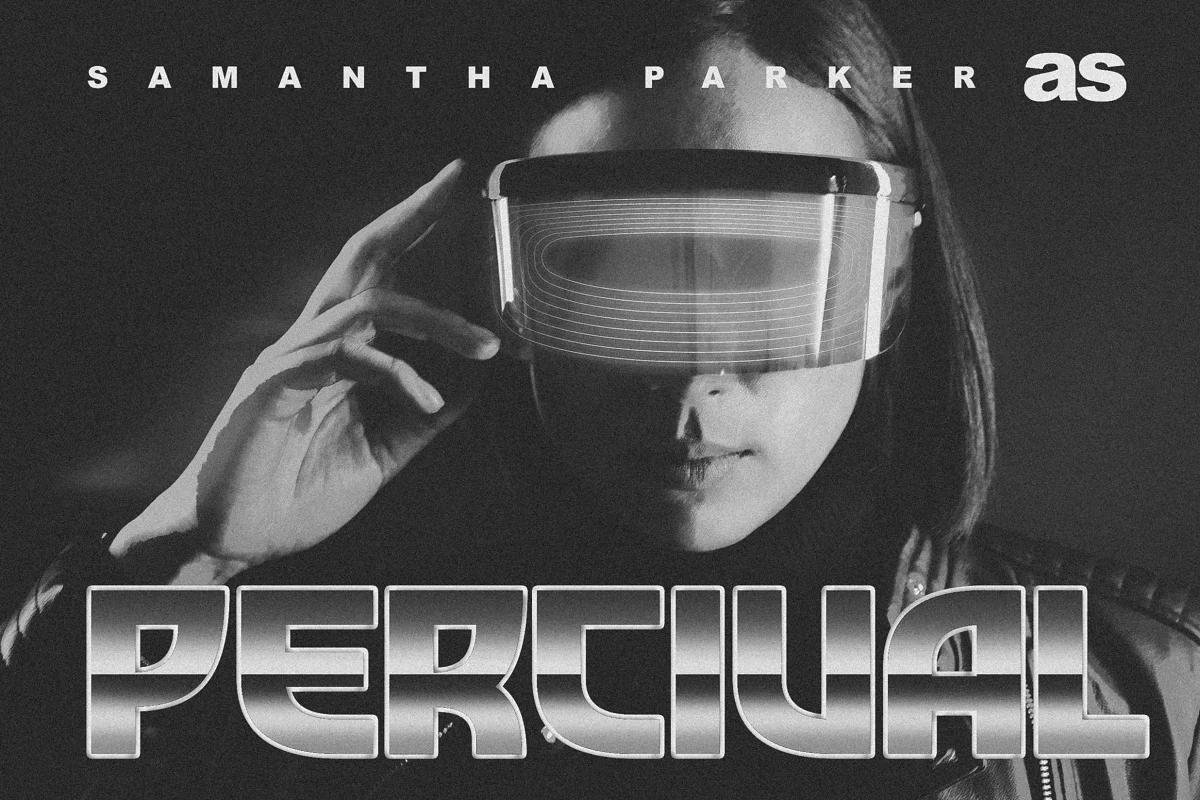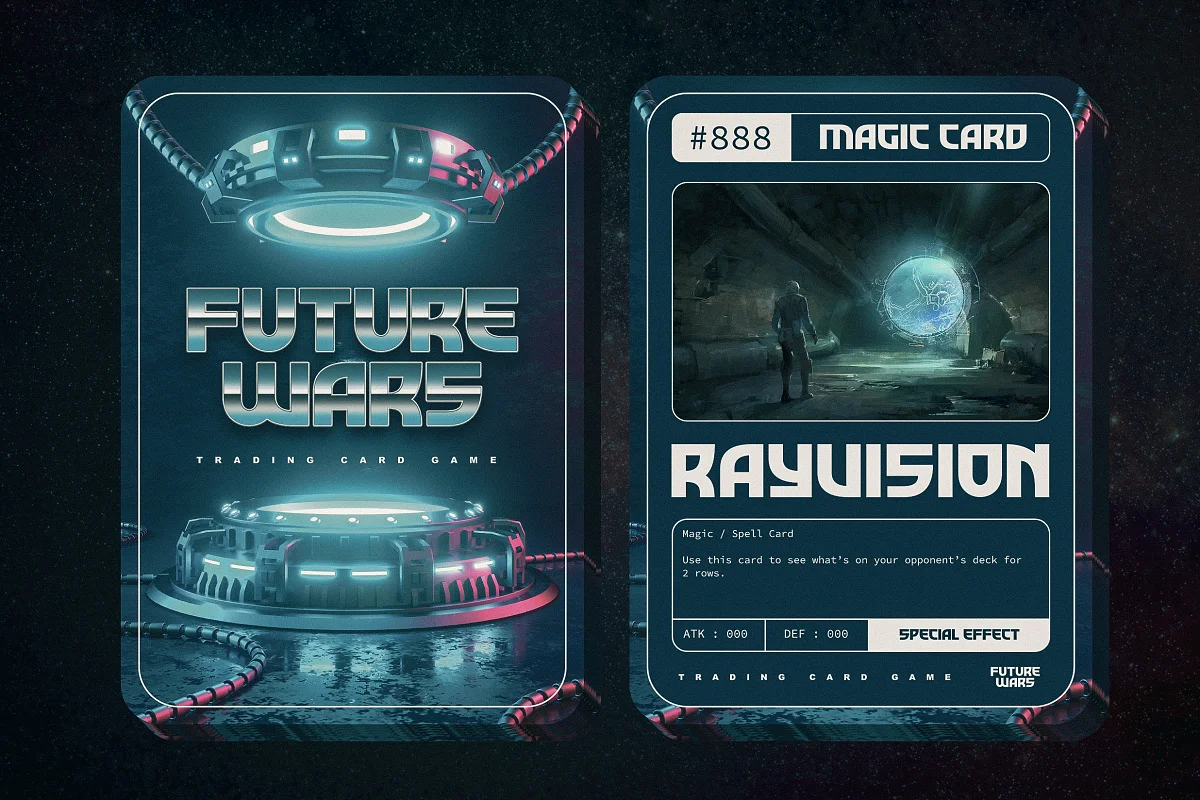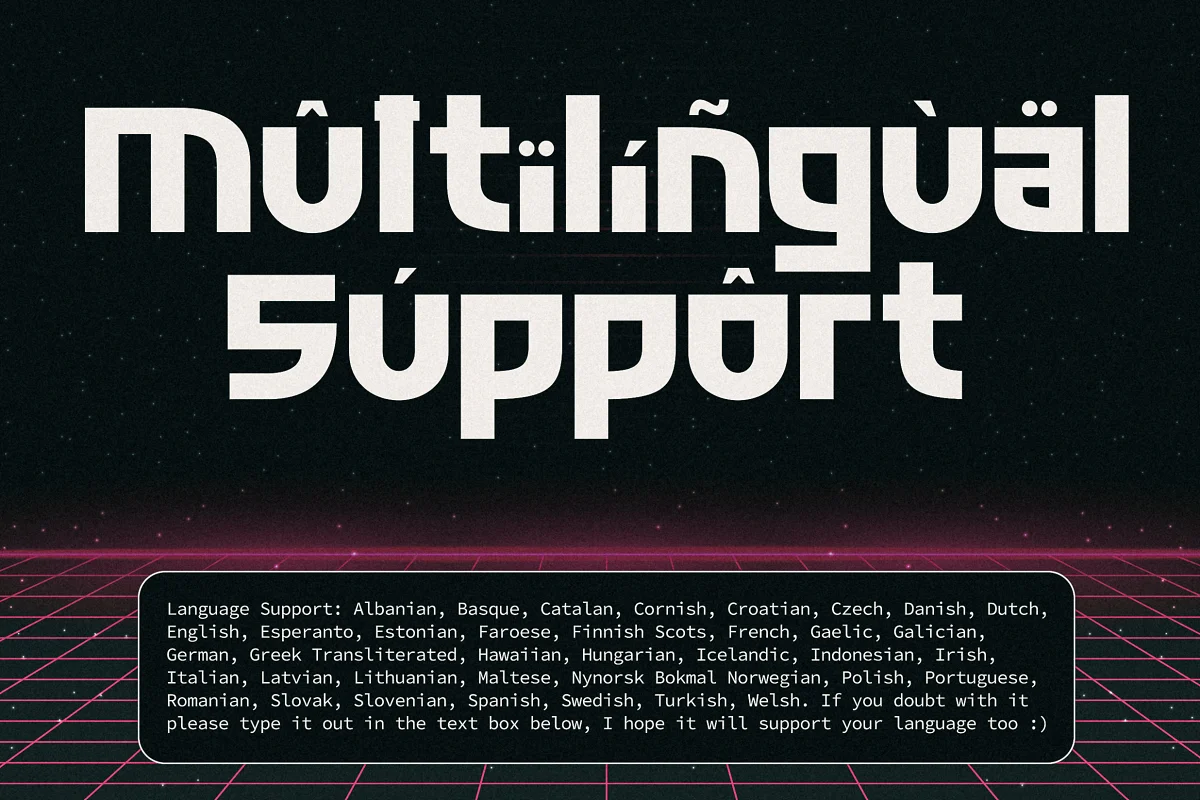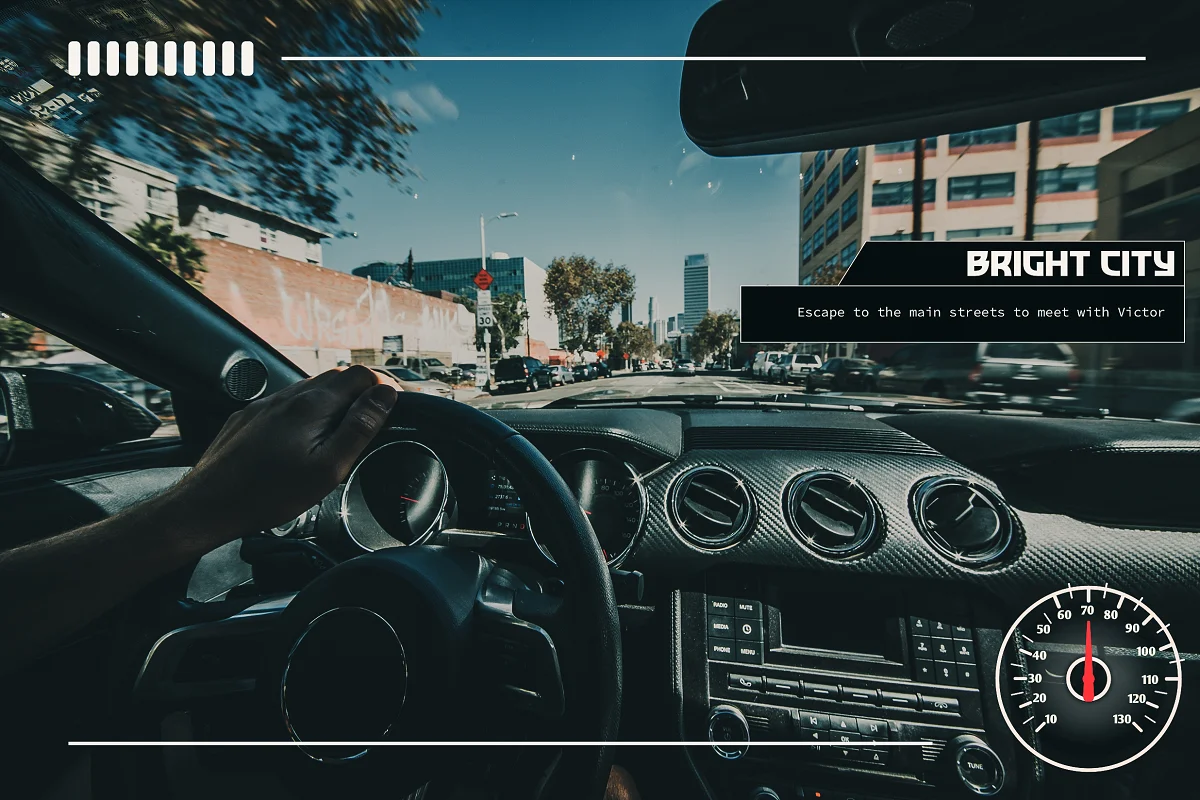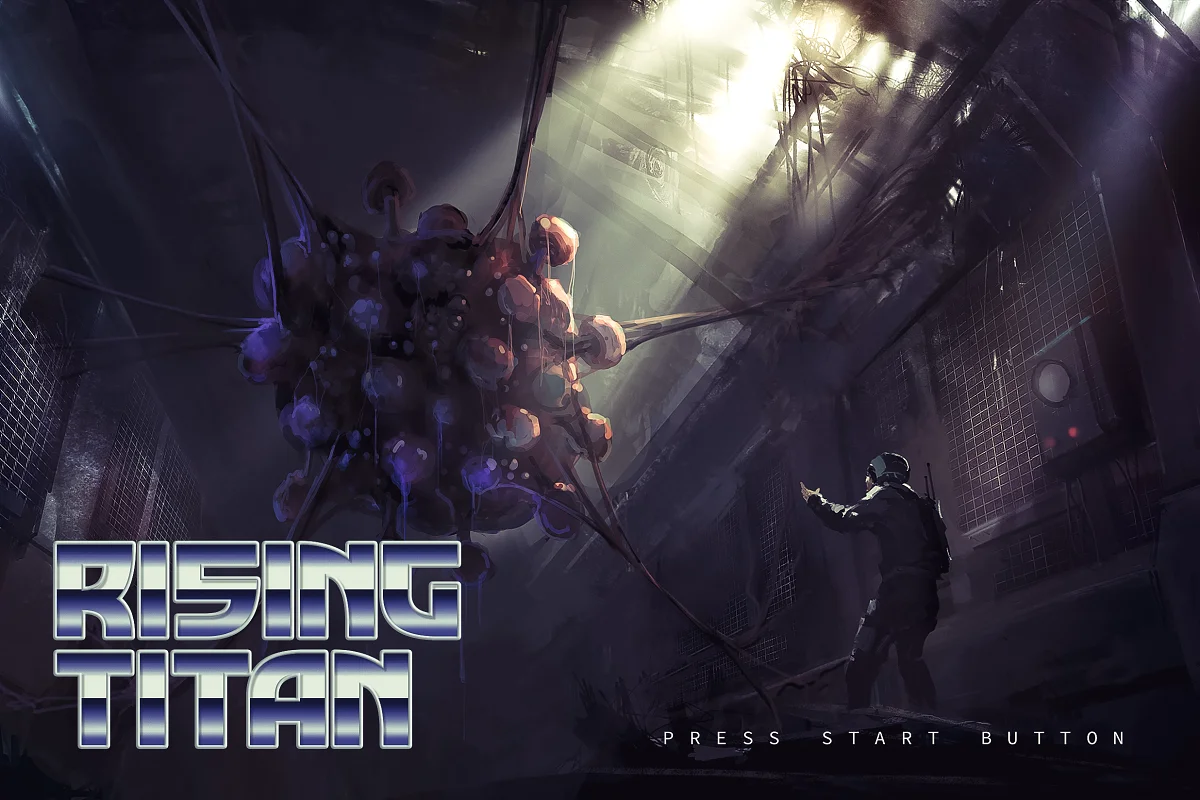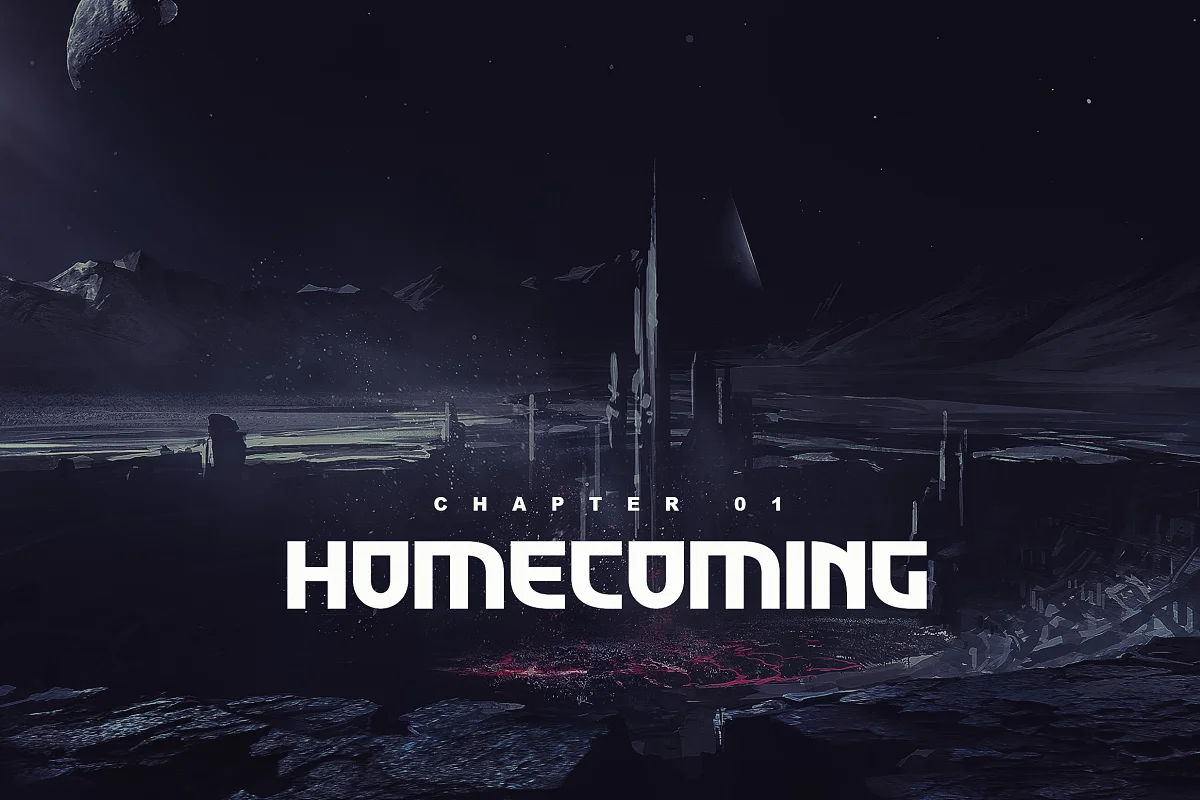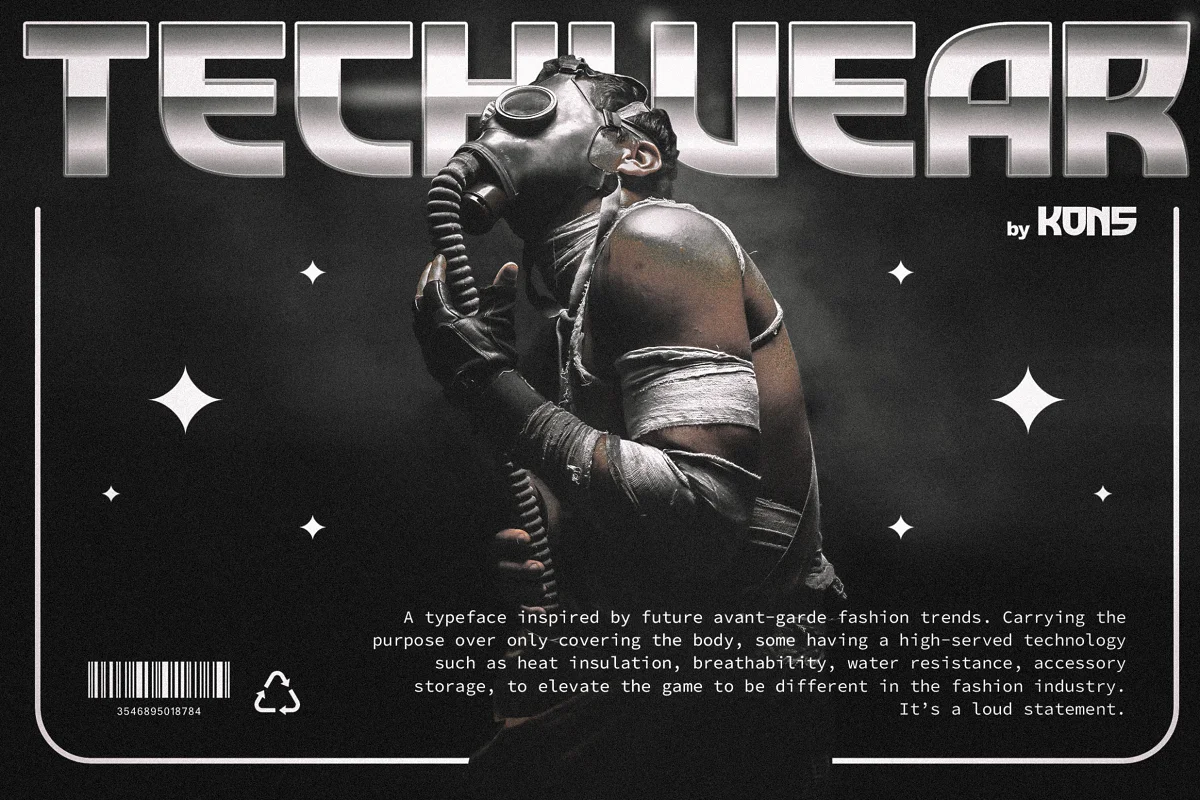
Welcome to Techwear – Retro Futuristic Fonts!
Are you ready to dive into the world of retro-futurism? This digital download features the amazing Techwear fonts, bringing you instant access to a unique typeface that draws inspiration from the vibrant 80s! ✨ Perfect for capturing that nostalgic essence while adding a modern twist, these fonts are ideal for any creative project.
Techwear is not just any font; it’s a celebration of futuristic aesthetics and retro vibes! 🌌 With its roots in the 80s, this typeface encapsulates how people envisioned the future during that iconic era. Whether you’re creating album artwork, branding, or UI designs, Techwear is the perfect companion for your creative journey.
- Unique Aesthetic: Perfect for capturing the essence of retro-futurism in your designs.
- Versatile Usage: Ideal for logos, branding, vaporwave, synthwave, and more!
- Language Support: Supports a wide range of languages, making it accessible for global projects.
This font is a fantastic choice for:
- Graphic Designers
- UI/UX Designers
- Musicians and DJs
- Game Developers
- Fashion Enthusiasts
- What is the support for different languages? Techwear supports a wide array of languages, so you can use it in your projects regardless of language!